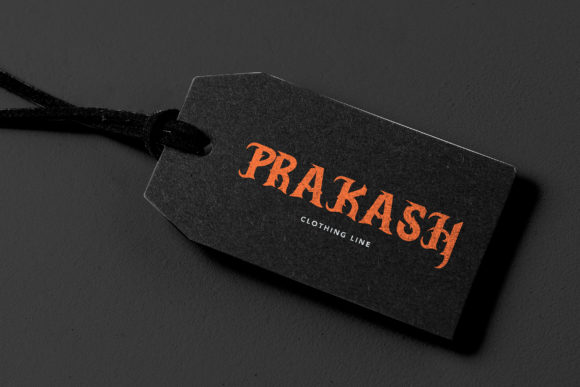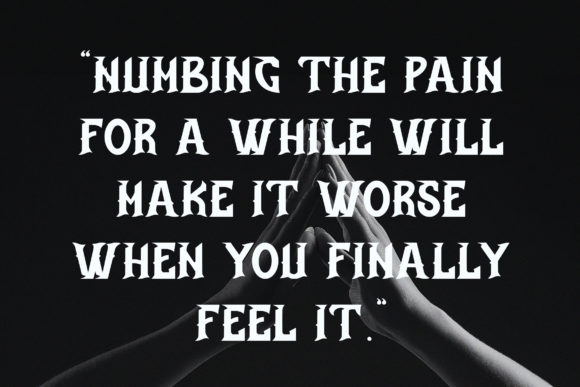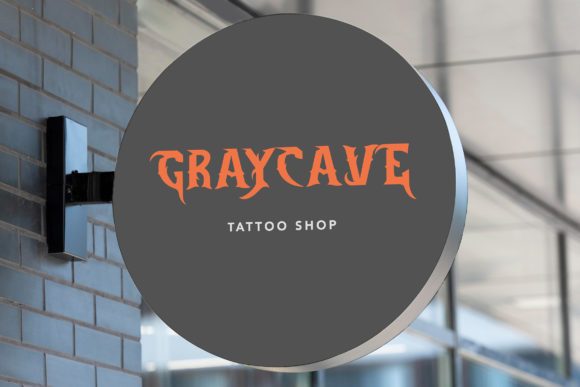
Introduction to Existence Font
As a designer, there’s nothing quite like the rush of stumbling upon the perfect font to elevate your creative project. You know, that moment when the words start flowing and the design begins to take shape. For many of us, it’s a feeling of pure excitement and anticipation. And that’s exactly what we’ll be exploring today – the Existence Font.
With its bold, gothic aesthetic, the Existence Font is a true showstopper. Perfect for logotypes, posters, book covers, and more, this high-quality font is a valuable resource for any designer looking to add a touch of darkness and sophistication to their work.
Key Features of Existence Font
- Unique characteristics include a modern and sleek design aesthetic, making it ideal for contemporary creative projects
Honest Review: Existence Font
As a designer, I’m always on the lookout for high-quality design resources that can elevate my creative projects. Recently, I came across the Existence Font, and I’m excited to share my honest review with you.
- ✨ High-quality design: The Existence Font is beautifully crafted, with clean lines and a modern aesthetic that’s perfect for a variety of creative projects.
- ⚠️ Limited font styles: While the Existence Font is a great addition to any design, it’s limited to a single style, which may not be suitable for projects that require multiple font styles.
Overall, I’m impressed with the Existence Font’s high-quality design and transparent background. It’s an excellent resource for designers who want to add a modern touch to their creative projects. While it may have some limitations, it’s still a great addition to any design toolkit.
Common Use Cases for Existence Font
Existence Font is a versatile design resource that can be used in a variety of creative projects, including social media graphics, presentations, reports, and documents. Its transparent background feature makes it perfect for use in designs that require a subtle, yet effective, text overlay.